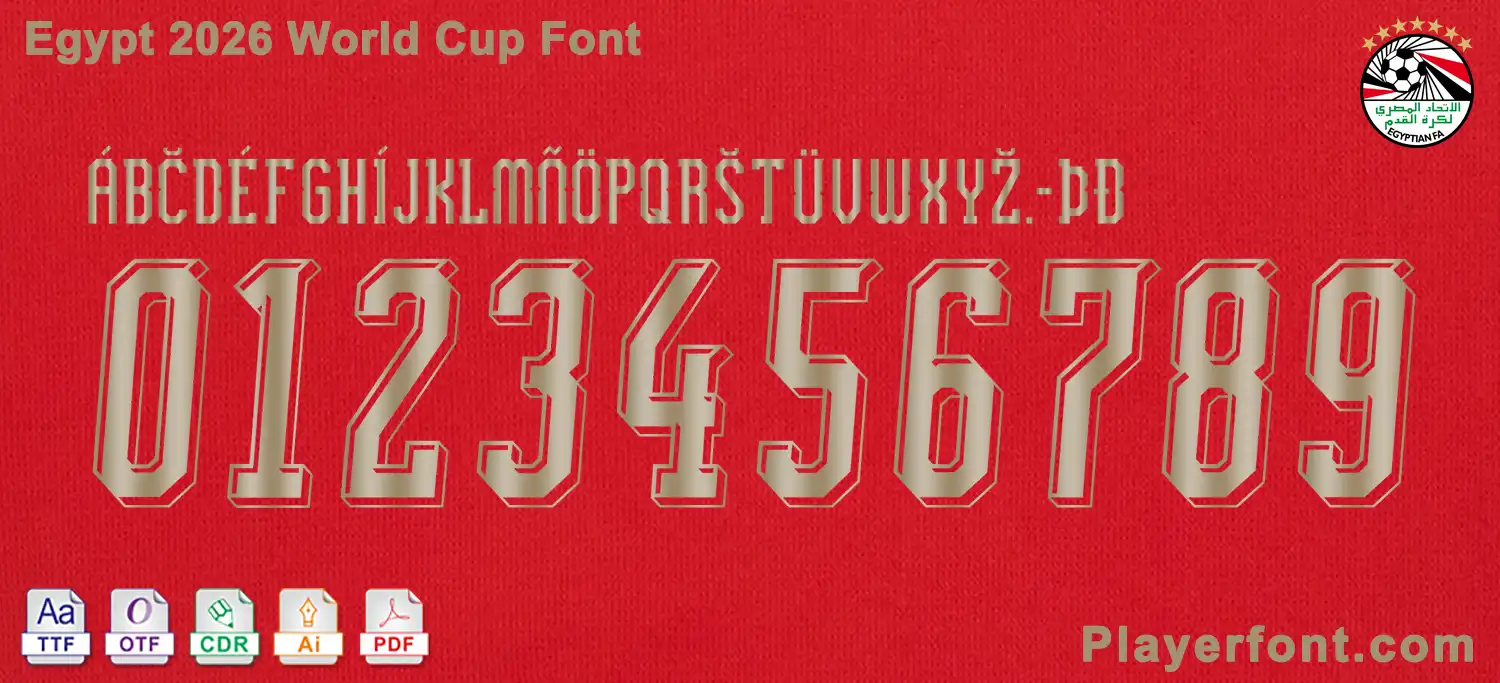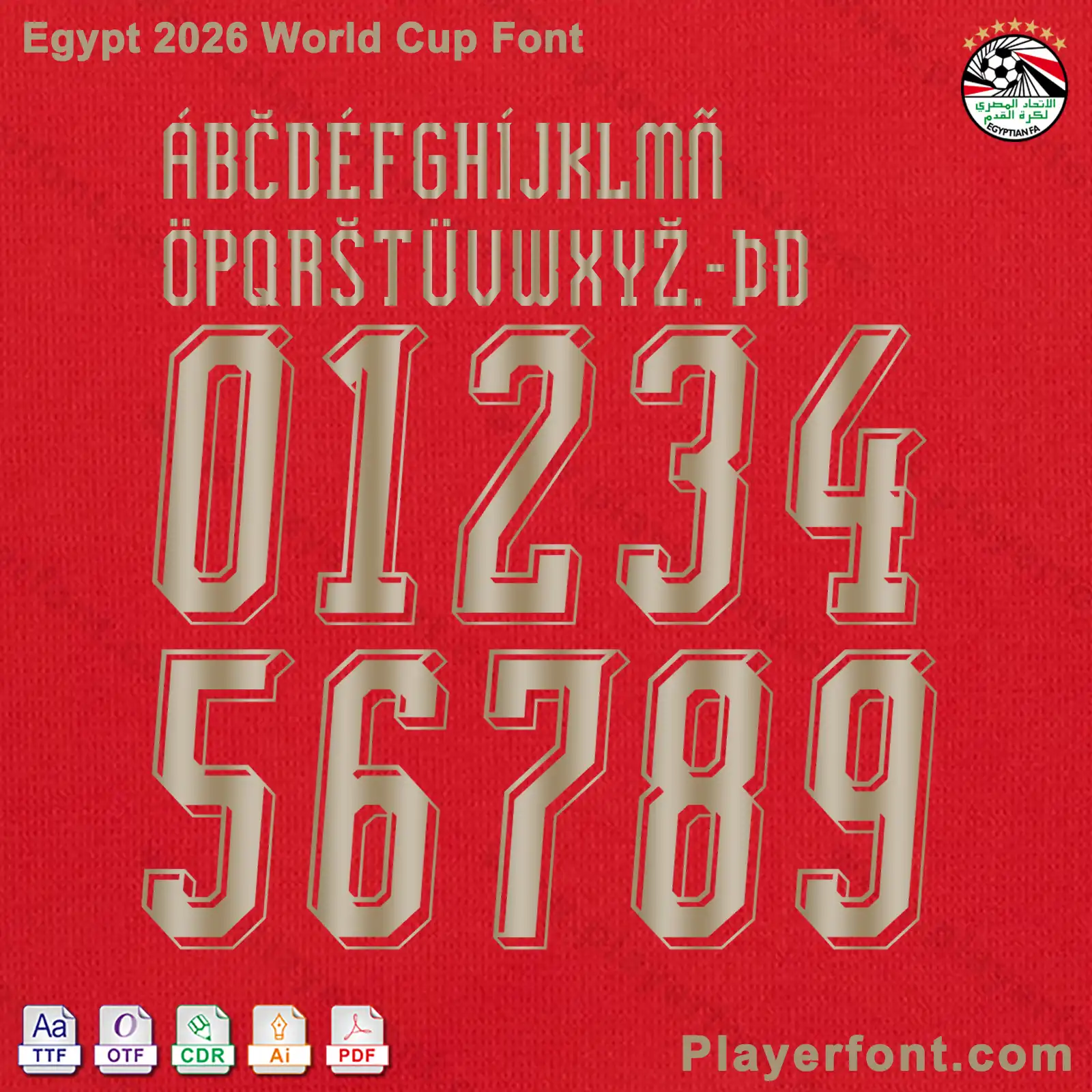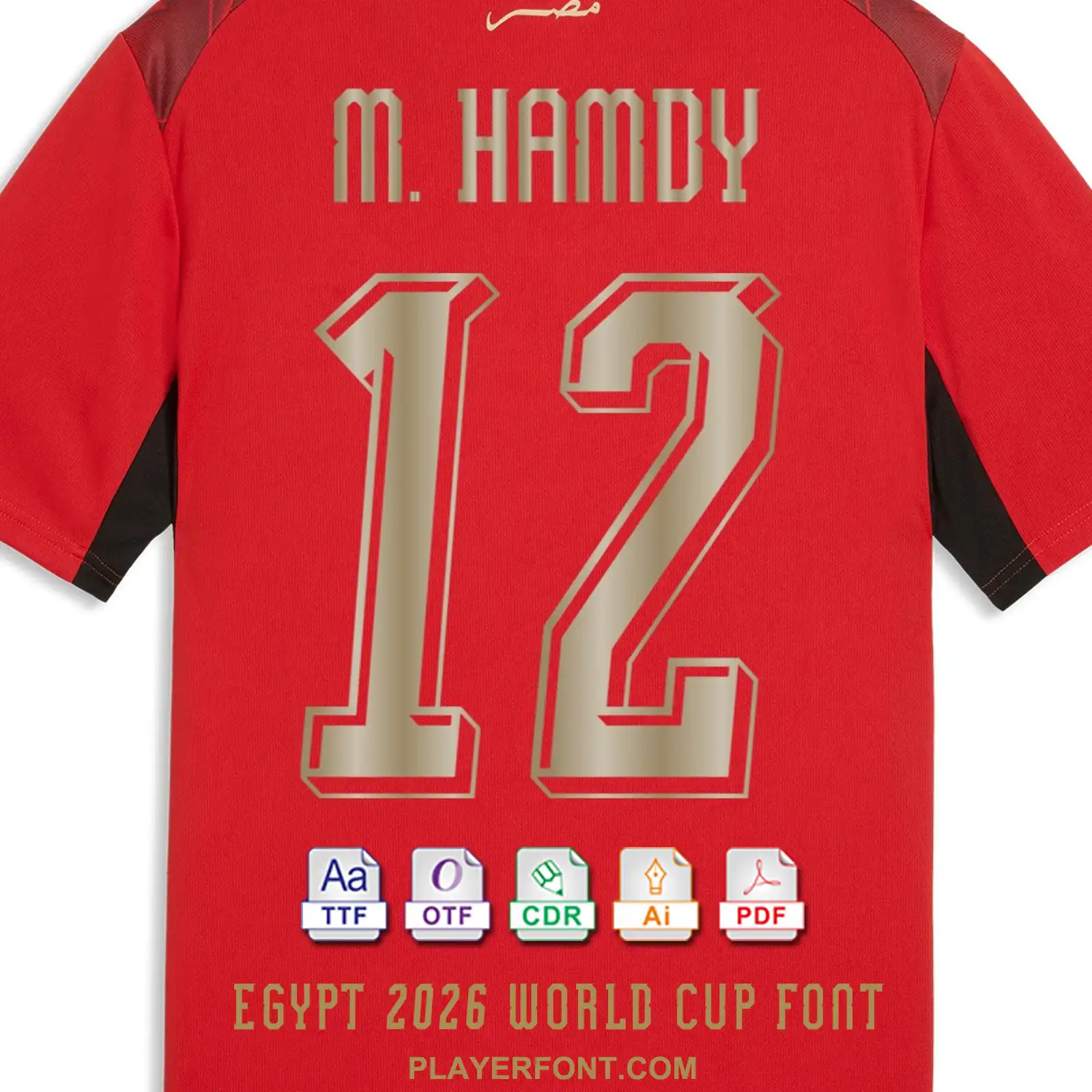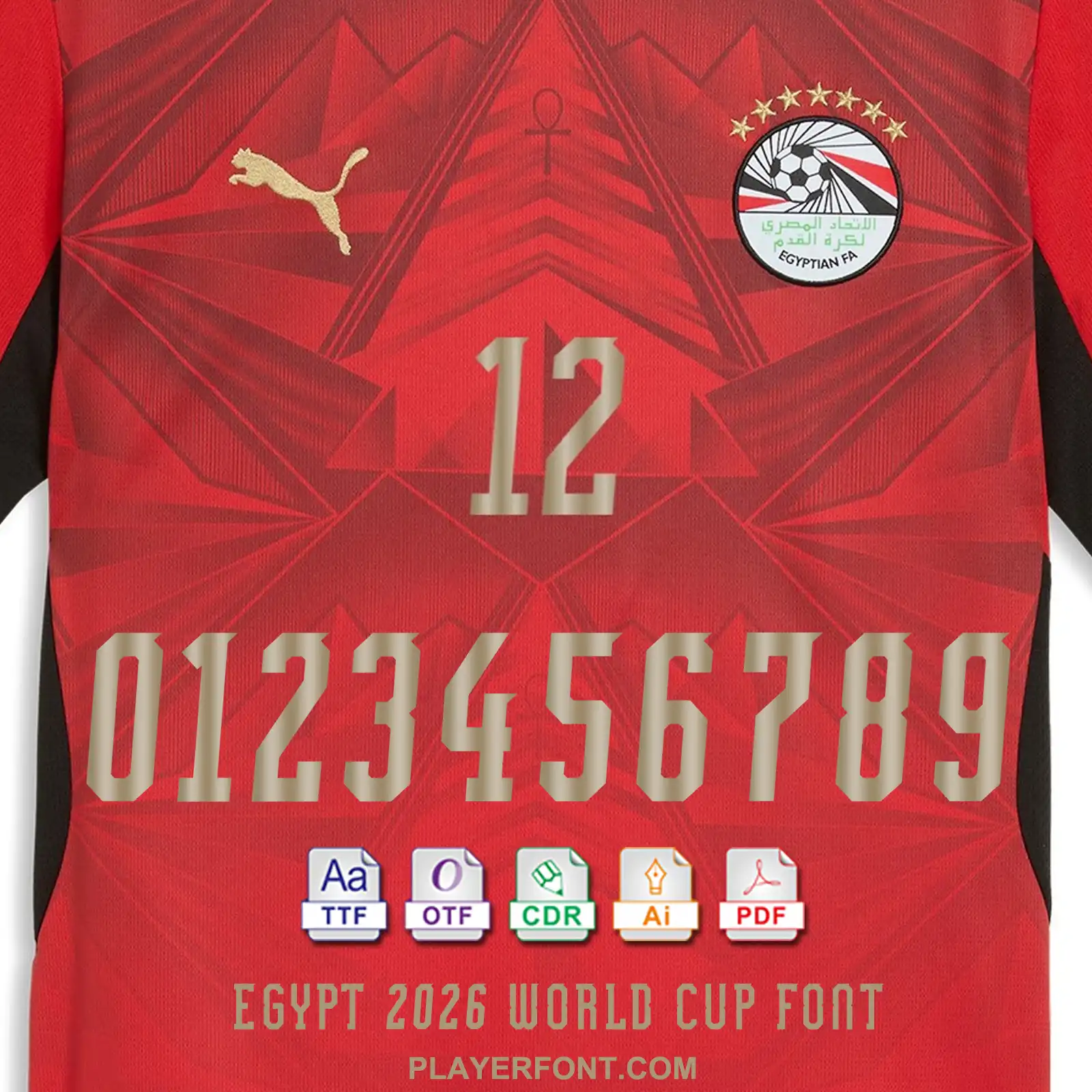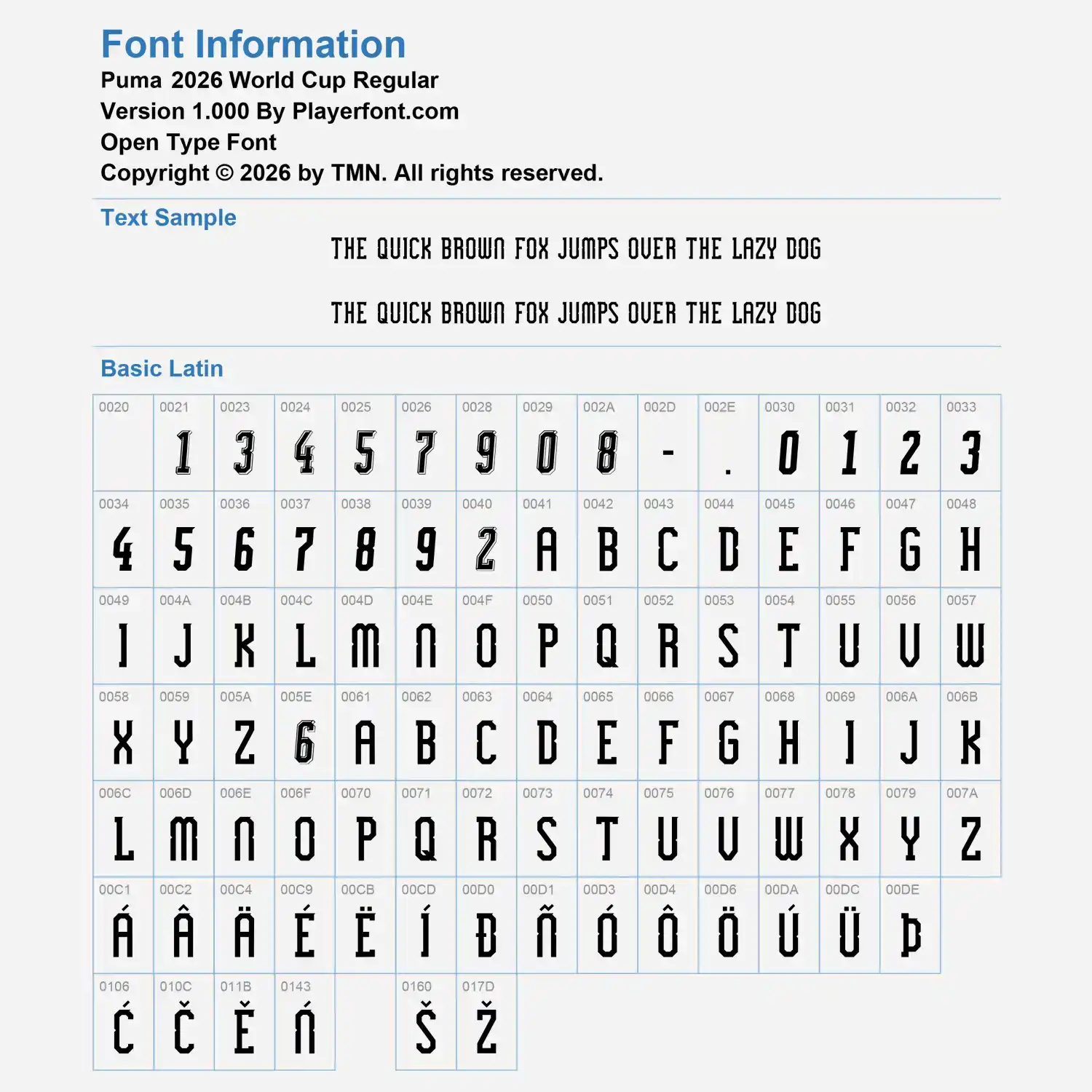
Capture the majesty of “The Pharaohs” with the official Egypt 2026 World Cup font. Meticulously recreated for the 2026 tournament, this typography kit reflects the unique cultural and modern aesthetic of the Egyptian National Team.
This font is a must-have for graphic designers, custom apparel printers, and football enthusiasts looking to create authentic fan gear. The sharp, geometric characters are engineered for flawless performance in vinyl cutting, sublimation, and high-resolution digital applications.
Full Character Set: Includes all uppercase letters, numbers 0-9, and essential tournament symbols.